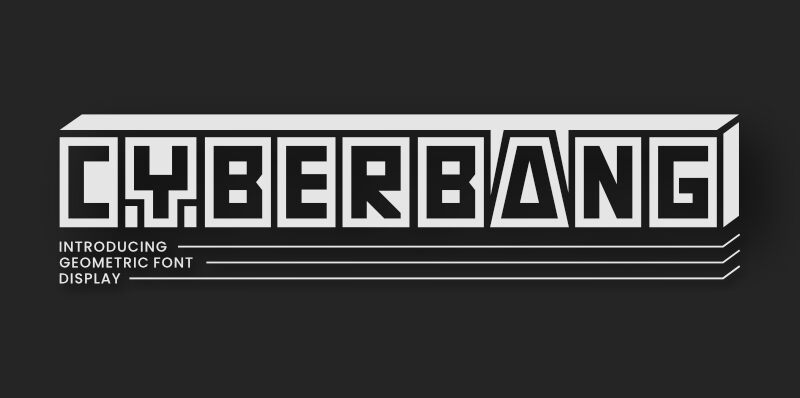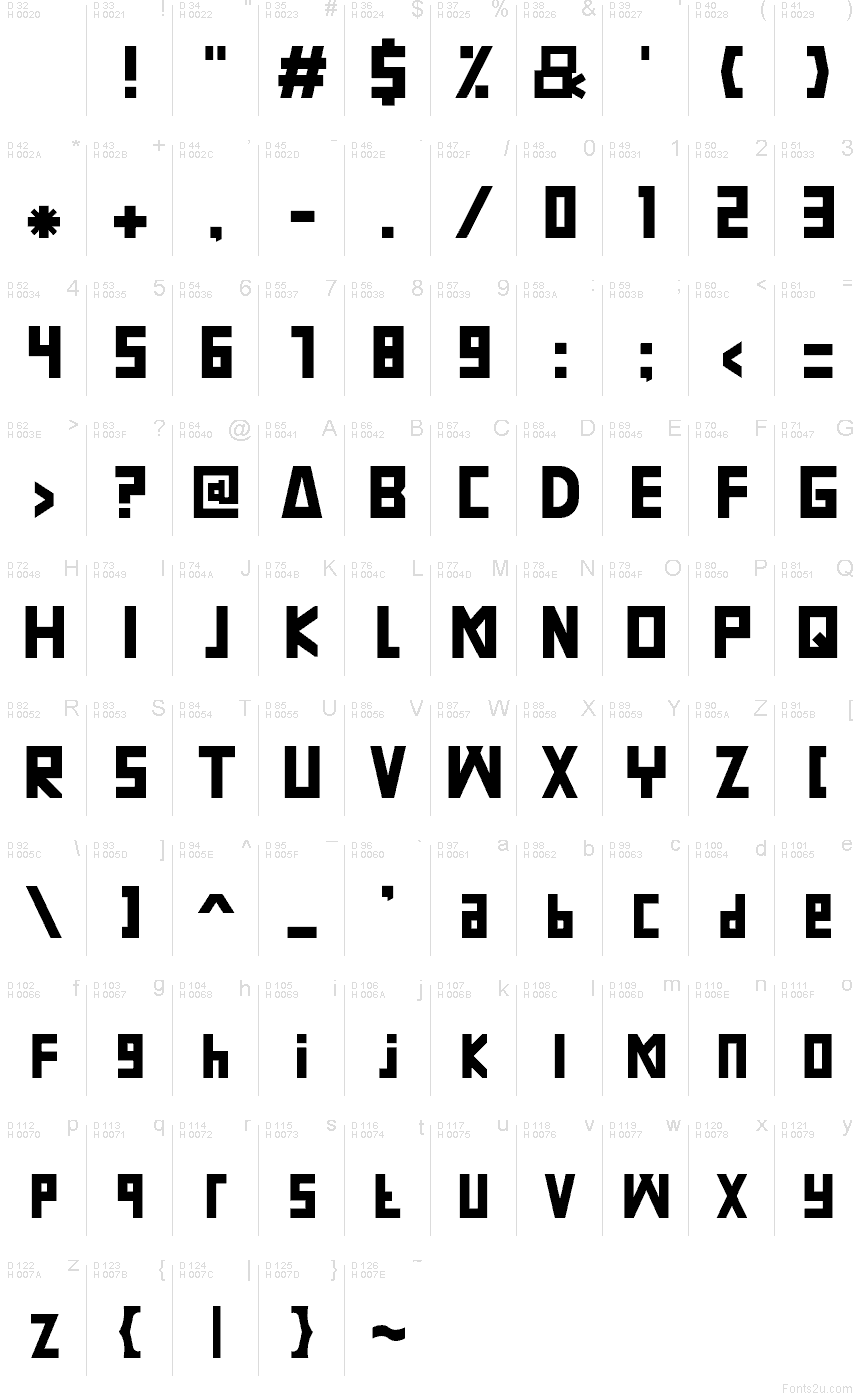
Cyberbang BOLD
Cyberbang BOLD font by Eka Rifqi Setiawan of erifqizefont is a free techno display typeface that looks like it’s been pulled straight from an 8-bit future. Blocky letterforms, tight spacing, and those cut-out square counters create a chunky, digital rhythm that reads like a glowing HUD on a black screen. It’s unapologetically bold and geometric, so even a short word hits like a logo.
Using Cyberbang BOLD, you can charge up esports branding, gaming thumbnails, sci‑fi posters, synthwave cover art, cyberpunk UI mockups, and tech event flyers. This free font shines on large titles and logotypes; keep it big and clean, then pair it with a light, neutral sans serif for body text to let the Cyberbang family do the heavy visual lifting.